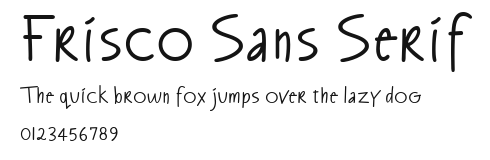
• Font Name: Frisco Sans Serif
• Designer: Ronna Penner
• Manufacturer: TYPADELIC FONTS
About Frisco Sans Serif.ttf
Frisco Sans Serif.ttf is a modern, elegant sans-serif font designed for ultimate readability and visual harmony. Perfect for branding, headlines, web design, and print materials.